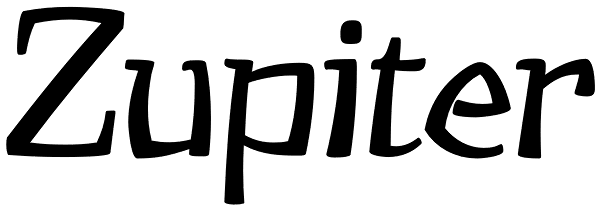
Zupiter
Every once in a while a weird font comes along that sets your graphics on its ear. Zupiter has that talent; its zany, angular lines make text look like it’s about to bounce off the page.
Zupiter Font